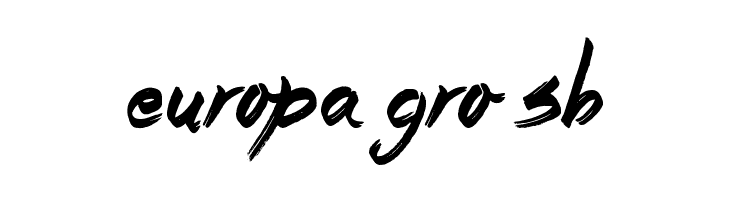
Storytella Font
Font by Letterhend Studio
A bold, textured handwritten font with dynamic strokes.
Claire Story Font
Font by Tokopress
Playful handwritten font with rounded edges.
Magical Story Shadow Font
Font by Gilar Studio
A playful, bold font with a hand-drawn style and shadow effect.
Biscuits Story Font
Font by Khurasan
A bold, playful handwritten font with thick strokes and a casual style.
KG Who Tells Your Story Font
A playful, hand-drawn font with a whimsical and friendly style.
BRENTON Font
Font by Storytype Studio
A bold, angular font with a strong, modern aesthetic.
Life Story Demo Font
Font by epiclinez
A playful, handwritten font with rounded, consistent strokes and a friendly appearance.
Christmas Story Font
A playful and elegant script font with decorative swirls and smooth cursive letters.
Story Choice Sans Serif Bold Font
A bold, modern sans-serif font with strong, clean lines.
Cave Story Regular Font
A pixelated, retro-style font inspired by classic video games.
Garinty Font
538Fonts - storychoice.wix.com/homepage
A bold, geometric font with a modern, tech-inspired aesthetic.
Legibility Font
538Fonts - storychoice.wix.com/homepage
A classic serif font with strong readability and elegant design.
Medusa Story - Personal Use Font
A bold, expressive script font with dynamic curves and modern elegance.
Story of Super Boys Font
7NTypes - Situjuh Nazara - 7ntypes.com
A playful, bold handwritten font with dynamic strokes and a casual style.
GORINE FLUMS Font
Font by Storytype Studio
A bold, angular font with a dynamic and edgy geometric style.
Info Story Font
A playful, rounded font with a friendly and approachable style.
Love Story Font
A romantic, cursive font with interconnected, flowing letters.
Joyful Story Font
Font by 7NTypes
A playful and whimsical font with bold, hand-drawn strokes and unique character designs.
RUZACK MOJOK Font